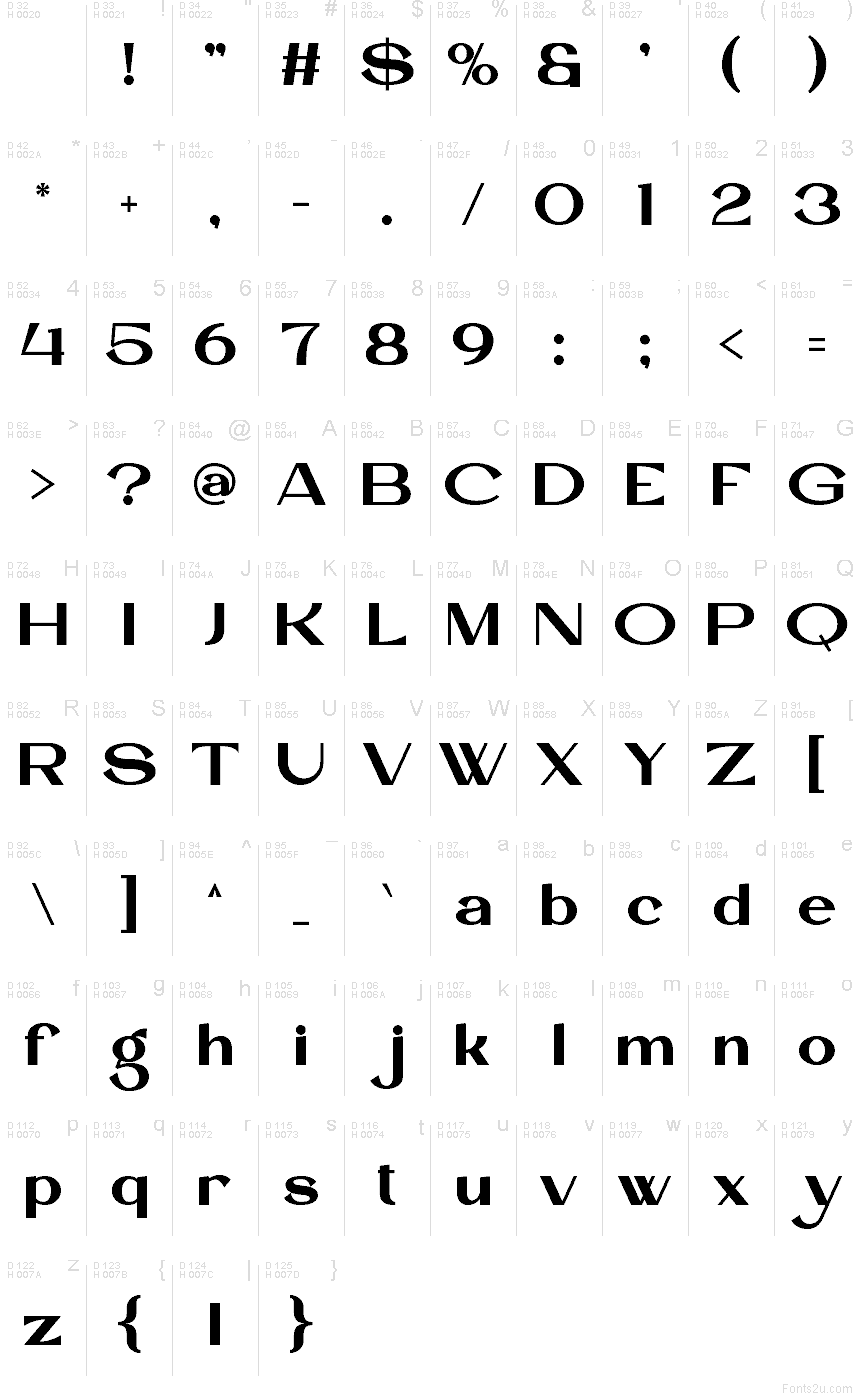
Ronder, a free high-contrast serif font from Ermedia Studio, brings a crisp editorial mood to broad, rounded letterforms. Strong shifts between fine and heavy strokes give the font a poised rhythm, while the near-circular curves and sharply cut details keep it direct and contemporary.
This free font fits fashion mastheads, culture magazines, art book covers, fragrance packaging, and refined brand identities. Its generous curves and dramatic stroke contrast also suit short headlines, cover lines, and title cards, where the lettering has enough room to show its sculptural character.